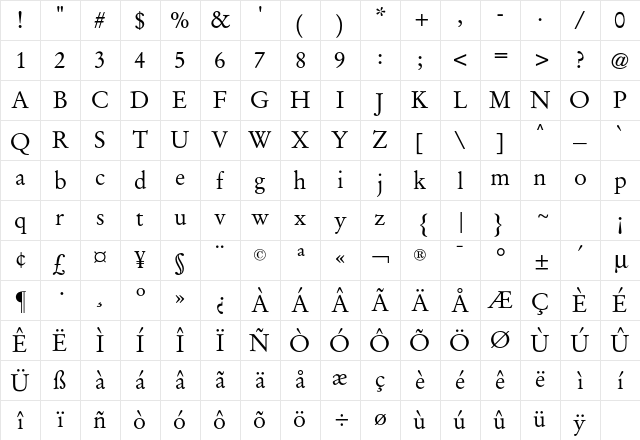
Garamond CG Regular
Foundry: Miles Inc
Design Context for Garamond CG
Garamond CG is a composed and adaptable typeface that performs quietly and consistently across a wide range of design contexts.